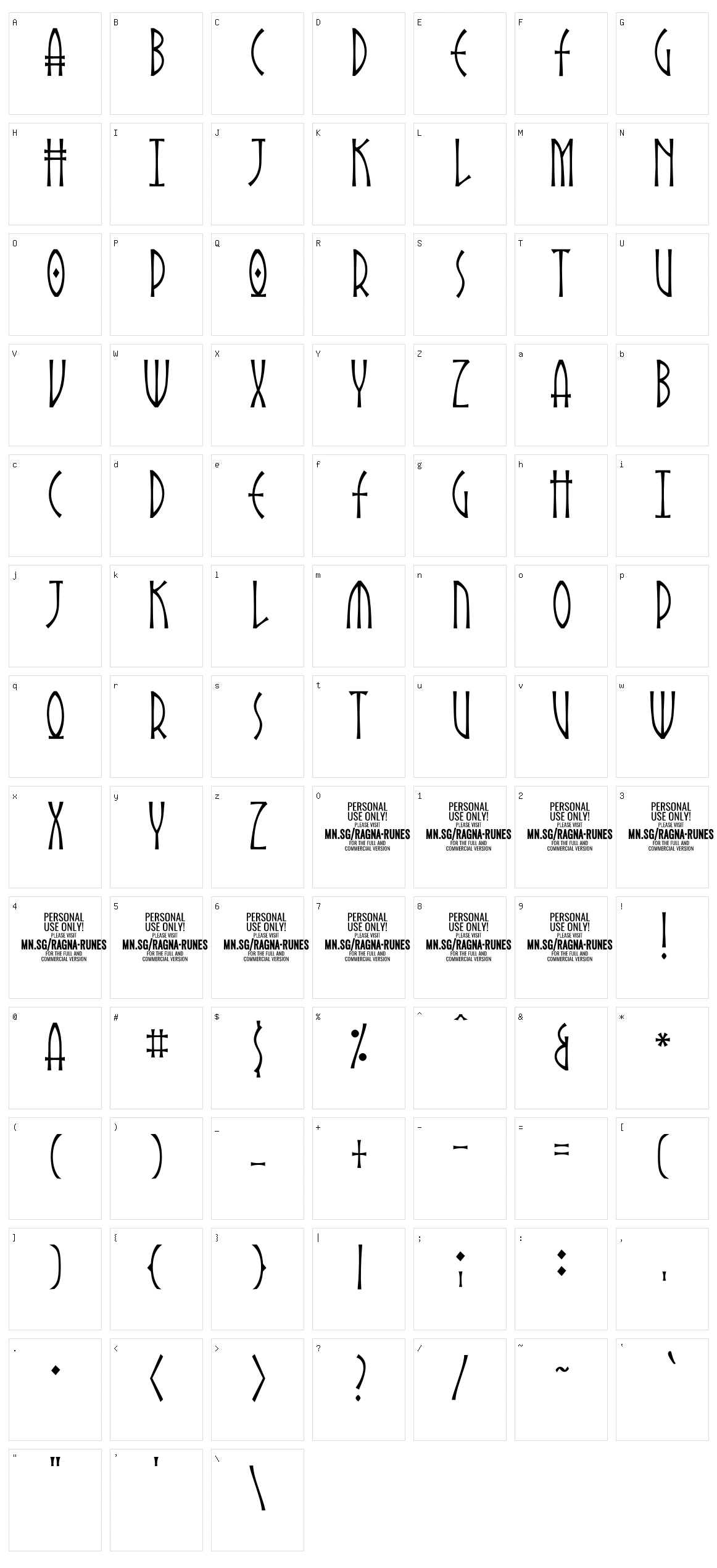
Ragna Runes
Designed by: Mans Greback
Category: Various & Gothic
Ragna Runes is not just a font; it's a journey back to the days of lore and legend. Using it feels like rediscovering a long-lost civilization, where every rune is more than a letter; it's an artifact of a bygone era.
The typeface features characters modeled after historical runes, making it uniquely suited for projects that require an ancient or mystical aesthetic.
Ragna Runes is built with advanced OpenType functionality and has a guaranteed top-notch quality, containing stylistic and contextual alternates, ligatures, and more features; all to give you full control and customizability. It has extensive lingual support, covering all Latin-based languages, and includes all the characters and symbols you'll ever need.
Behind this exquisite creation is Mans Greback. Known for pushing the boundaries of type design, Greback has ventured into the intricacies of aesthetic diversity with Ragna Runes. His portfolio is a testament to his versatility and daring, turning simple alphabets into powerful visual narratives.